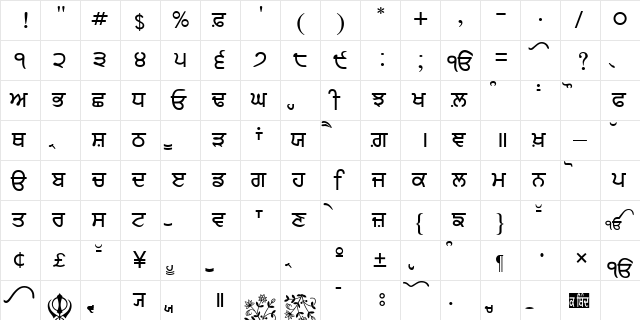
GurbaniAkharHeavy Regular
Design Context for GurbaniAkharHeavy Typeface
GurbaniAkharHeavy offers clean, dependable letterforms without strong stylistic allegiance, making it a practical choice for designers who need flexibility.